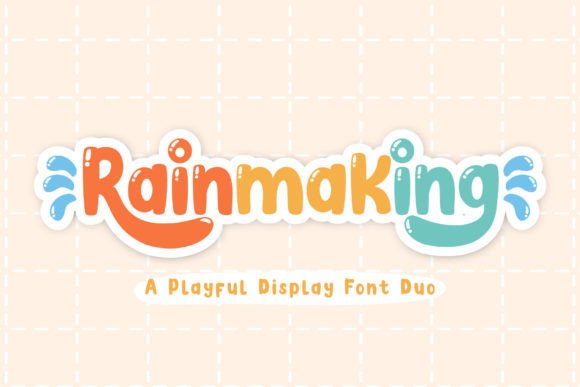
Introducing Rainmaking Font - The Key to Unlocking Enchanting Designs!
Step into the realm of captivating typography with Rainmaking Font, an exquisite duo that combines simplicity and playfulness in perfect harmony. Exclusively crafted by Madatype Studio, this font family offers a refreshing take on handwritten fonts, injecting a touch of sophistication into your design endeavors.
Rainmaking Font exudes a natural charm, reminiscent of hand-lettering artistry. Its organic lines flow effortlessly, creating a sense of authenticity and warmth that resonates with audiences. Whether you're a seasoned designer or just starting out, this user-friendly font duo empowers you to create impactful designs with minimal effort.
With two distinct styles - Regular and Flat - Rainmaking Font adapts effortlessly to a myriad of design projects. The Regular style dances with elegance, while the Flat style exudes a clean, modern appeal. This versatile duo ensures you'll never run out of options, allowing you to tailor your designs to perfection.
Rainmaking Font features a delightful collection of ligatures and alternates, adding a layer of visual interest and personality to your creations. These carefully crafted additions provide endless opportunities for customization, ensuring your designs stand out from the crowd. Unleash your creativity and explore the boundless possibilities that Rainmaking Font has to offer.
From striking logos that demand attention to captivating posters that captivate audiences, Rainmaking Font is the ultimate choice for designers seeking a font that leaves a lasting impression. Its versatility extends to flyers, banners, and social media graphics, making it the perfect companion for any project that demands a touch of visual allure.